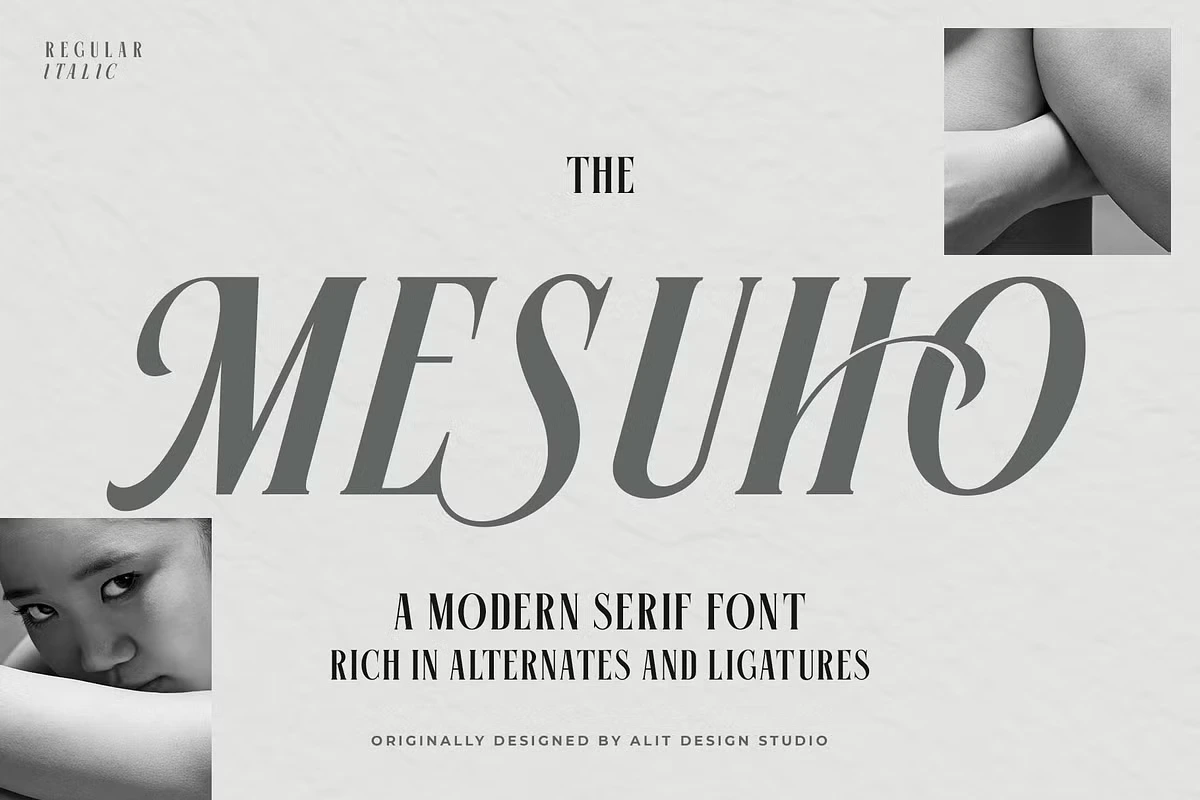
Mesuho Serif Font: Elegance & Versatility
Typography plays a crucial role in design, setting the tone for branding, editorial projects, and marketing materials. If you’re looking for a sophisticated yet modern serif font typeface, Mesuho is an excellent choice. Combining elegance with versatility, this font enhances any design project with its refined letterforms and timeless appeal.
Mesuho Serif Font
What is Mesuho Font?
Mesuho is a premium serif font that masterfully blends classic and contemporary aesthetics. Designed for readability and style, it stands out in high-end branding, editorial design, and elegant advertising campaigns. Whether used in digital or print media, Mesuho provides a polished and artistic touch to your typography.
Key Features of Mesuho
1. Serif Elegance
Mesuho features beautifully crafted serifs that enhance its sophistication. The clean yet artistic strokes make it suitable for luxury branding, fashion editorials, and wedding invitations.
2. Stylistic Alternatives
One of the standout features of Mesuho is its multiple stylistic sets, including sets 4, 5, 6, and 7. These alternatives allow designers to experiment with unique typographic compositions, ensuring a personalized touch in every project.
3. Versatile Weights & Styles
Mesuho comes in both Regular and Italic styles, making it suitable for different design needs. Whether you need bold headlines or refined body text, Mesuho adapts seamlessly.
4. Uppercase & Lowercase Harmony
The uppercase letters of Mesuho stand out with their striking presence, making them perfect for logos and titles. Meanwhile, the lowercase letters maintain a smooth, timeless flow, ideal for body text and editorial work.
Where to Use Mesuho Font?
Mesuho’s sophisticated look makes it a versatile choice for various applications:
1. Fashion & Editorial Design
If you’re designing a magazine layout, portfolio, or personal blog, Mesuho brings a chic and luxurious feel that enhances readability and aesthetics.
2. Luxury Branding & Logos
High-end brands require fonts that convey elegance and exclusivity. Mesuho’s clean serif design makes it perfect for premium logos, luxury packaging, and branding materials.
3. Wedding Invitations & Stationery
Mesuho’s timeless beauty makes it ideal for formal occasions like weddings, providing an elegant touch to invitations, menu cards, and event programs.
4. Social Media Graphics
For content creators looking to enhance their social media presence, Mesuho offers a stylish and sophisticated typographic solution. Whether for Instagram posts, Pinterest graphics, or digital ads, this font adds a refined touch.
Why Choose Mesuho?
Mesuho stands out among serif fonts due to its balance between modern refinement and classic charm. Its adaptability makes it an essential asset for designers seeking a typeface that combines luxury with usability. The inclusion of stylistic sets and italics adds flexibility, ensuring that your designs always look professional and polished.
Mesuho Font Styles
- Regular
- Italic
- Multiple Stylistic Sets (4, 5, 6, 7)
Final Thoughts